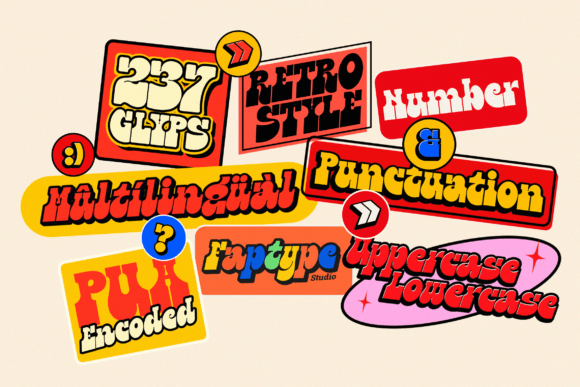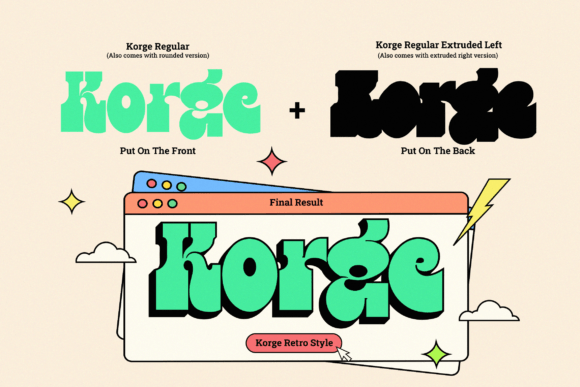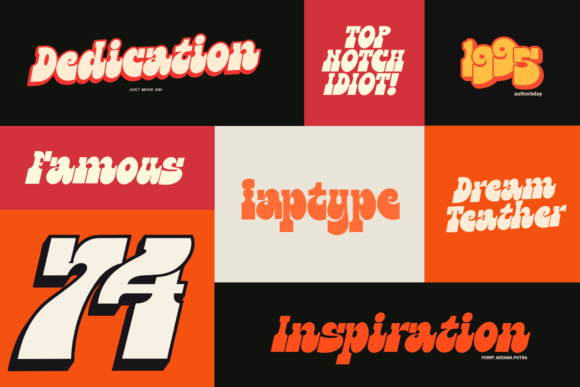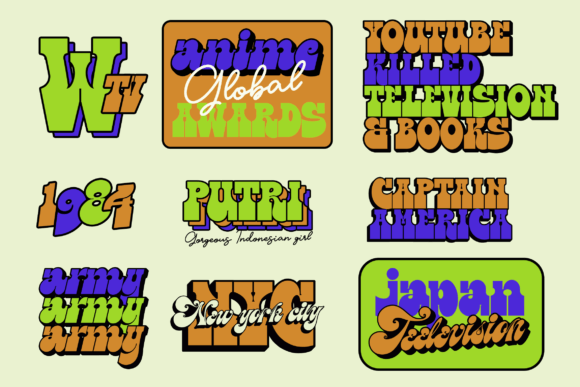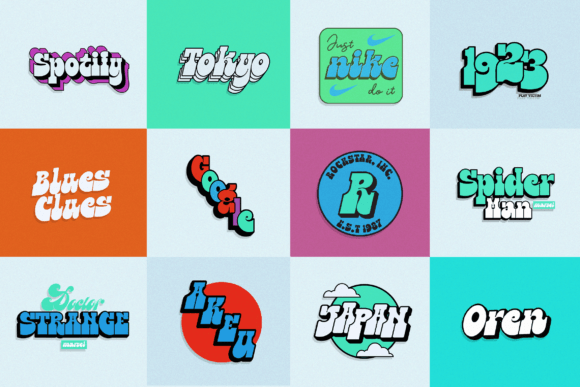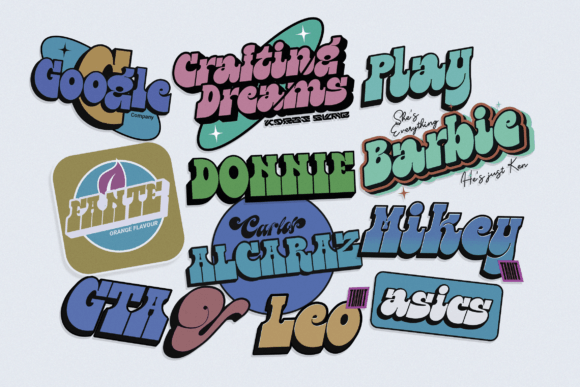
Introduction to Korge Font
Have you ever stumbled upon a design that instantly transports you to a bygone era? A moment when the perfect combination of typography, color, and texture takes you back to a golden age of creativity? For designers, this experience is a treasure to behold, and with the Korge Font, you can recreate that magic in your own projects. This captivating and versatile retro bold slab serif font is a game-changer for creatives, offering a wealth of possibilities for your design ventures.
Whether you’re working on a logo design, branding, or a creative project, the Korge Font is an invaluable resource. Its high-quality design and transparent background make it perfect for use on any background, while its multi-language support ensures your message resonates with audiences from diverse linguistic backgrounds.
- Designed with a unique and stylish aesthetic, Korge Font is perfect for designers seeking a distinctive look for their creative project.
Honest Review: Korge Font
- ✨ High quality typography – The font is well-designed and visually appealing, making it perfect for creative projects.
- ✨ Transparent background option – This feature allows for seamless integration with various backgrounds, giving designers more flexibility.
- ⚠️ Limited character set – The font only supports a limited set of characters, which might be a concern for designers working on complex projects.
Common Use Cases for Korge Font
Korge Font is ideal for use in a variety of creative projects, including:
Logo design
Brochure design
Infographic design
Business card design